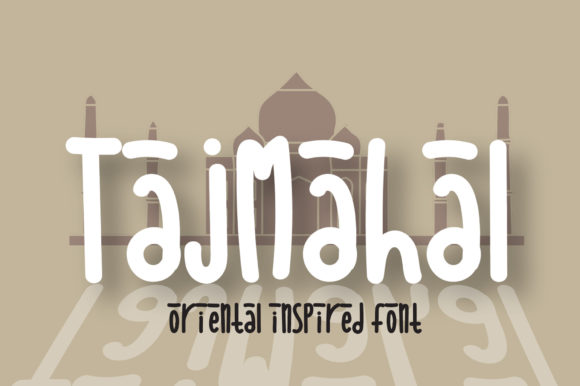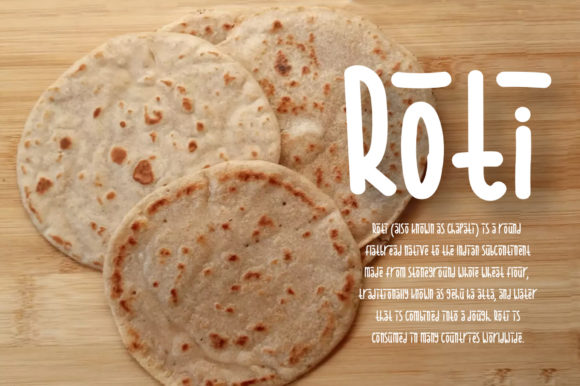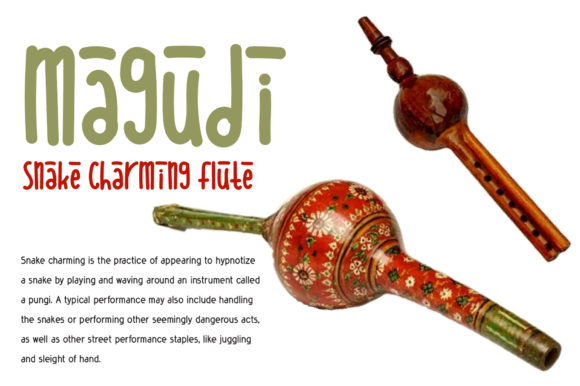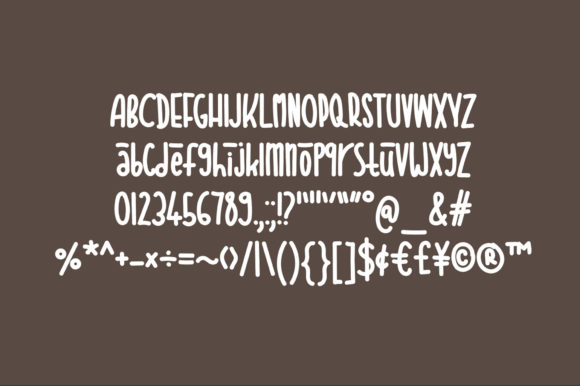
About Taj Mahal Font
TajMahal is a cute handwritten font featuring an Indian vibe. Its authentic look will add a personal and realistic feel to your designs.